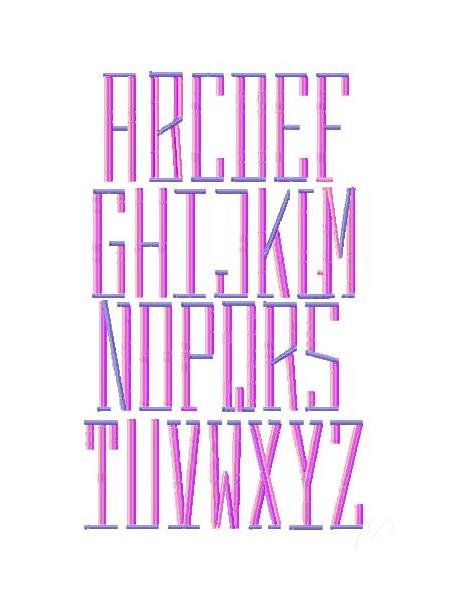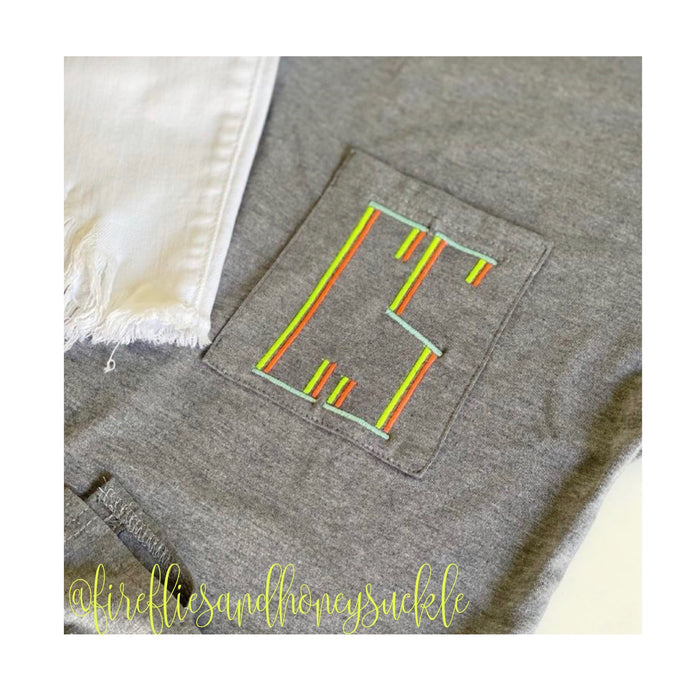
Sawyer Satin Stitch Font - 7 Sizes for Embroidery
Transform your embroidery projects with the Sawyer Satin Stitch Font! This beautifully crafted three-color font is perfect for monogramming, providing a stunning satin stitch finish that elevates any design.